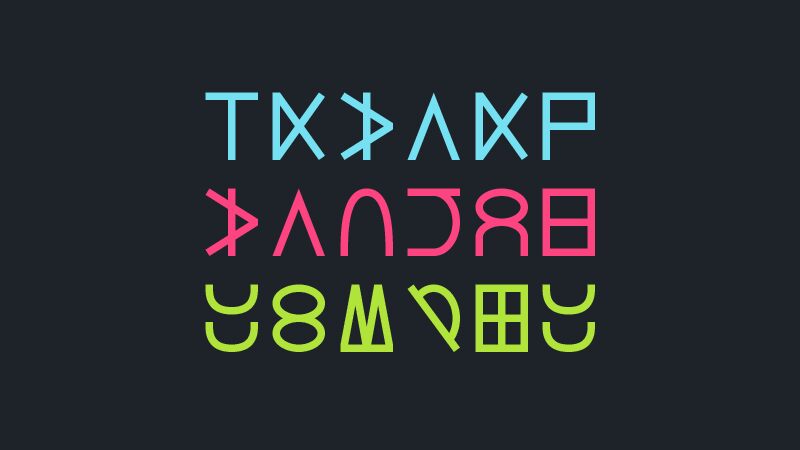
Lucius Cipher
Lucius Cipher, the unique dingbats typeface designed by GGBotNet, is the perfect addition to any creative project seeking a touch of mystery and intrigue. With its intricate symbols and mysterious designs, this semi-bold font boasts a wide range of potential use cases, from book covers and movie posters to logos and product packaging. Its narrow width also makes it a great option for digital designs or websites in need of a stylish accent. Add some cryptic charm to your next project with Lucius Cipher - the dingbats typeface that's sure to captivate your audience.